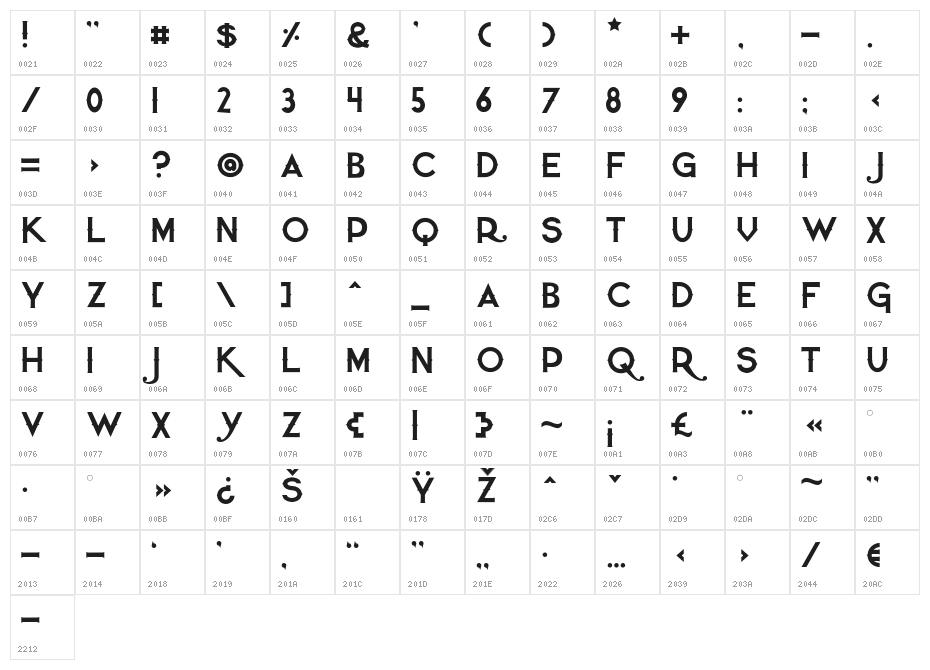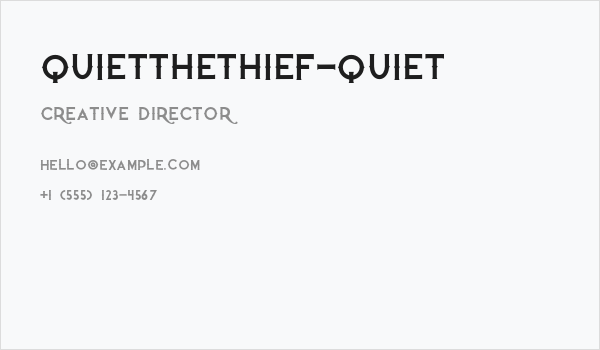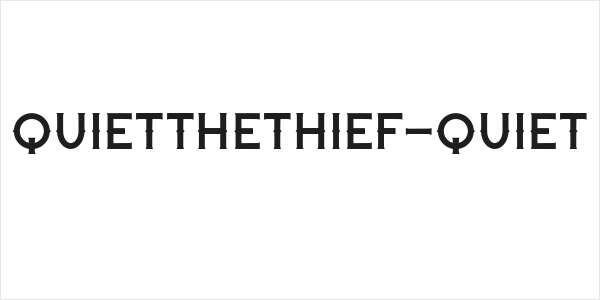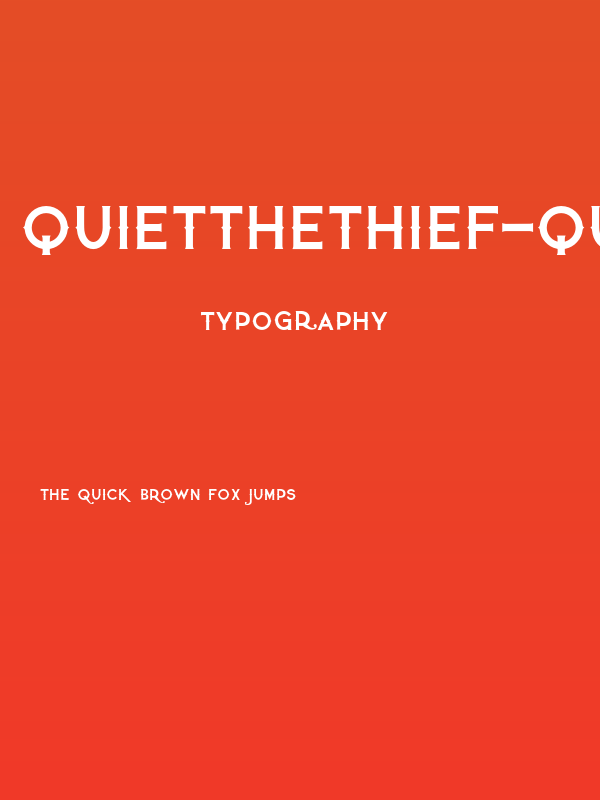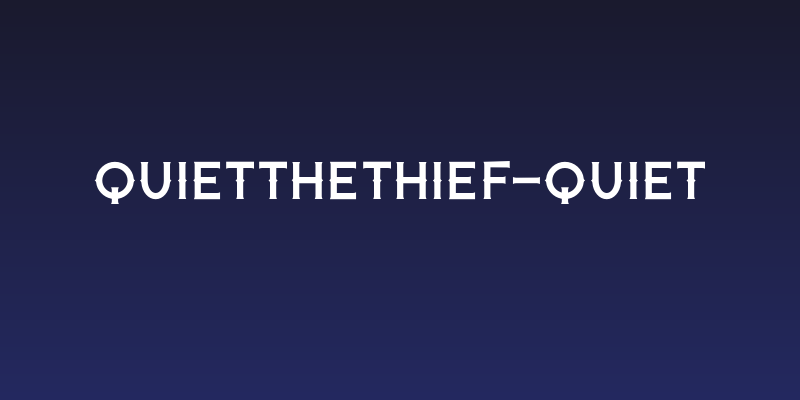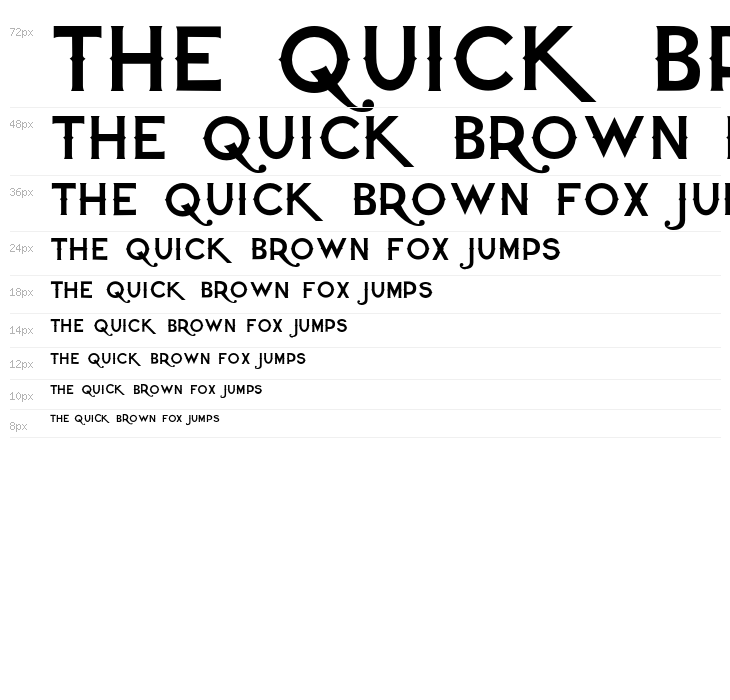
QuiettheThief-Quiet Font
QuiettheThief-Quiet Description
This font features a unique blend of modern and vintage elements, characterized by its bold and striking appearance. The uppercase letters exhibit a strong presence with distinct serifs and a slight curvature that adds a touch of elegance. The lowercase letters maintain a consistent style, offering a harmonious balance between readability and decorative flair. Numbers are bold and easily distinguishable, making them suitable for various applications. Special characters are designed with a creative twist, enhancing the overall aesthetic appeal. The font's design is versatile, making it ideal for projects that require a bold statement.
Proposed ProjectsIdeal for branding, posters, headlines, and any project requiring a bold, eye-catching typeface.